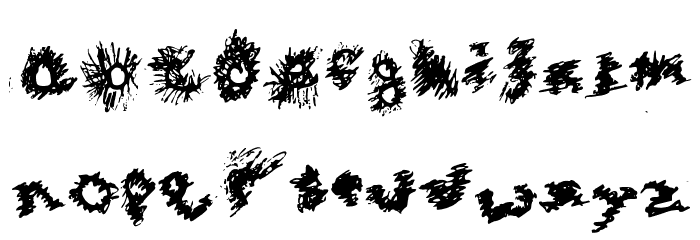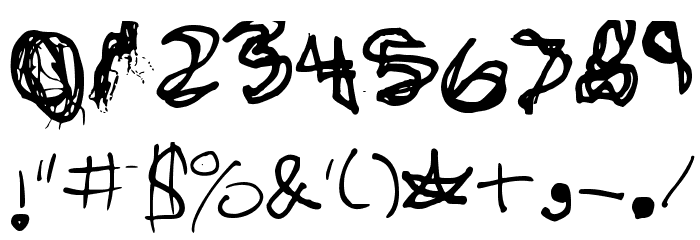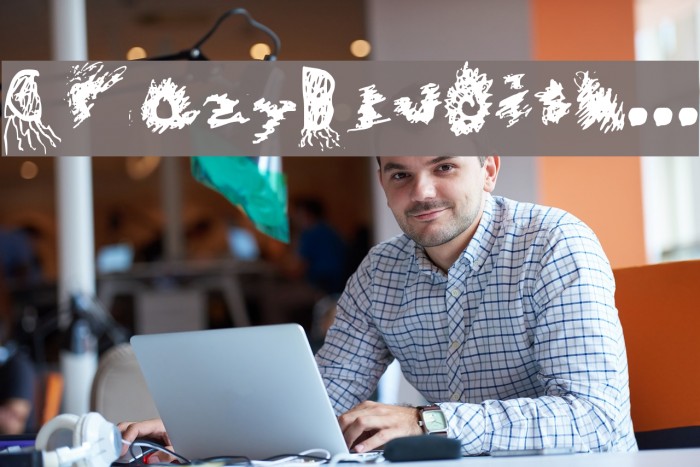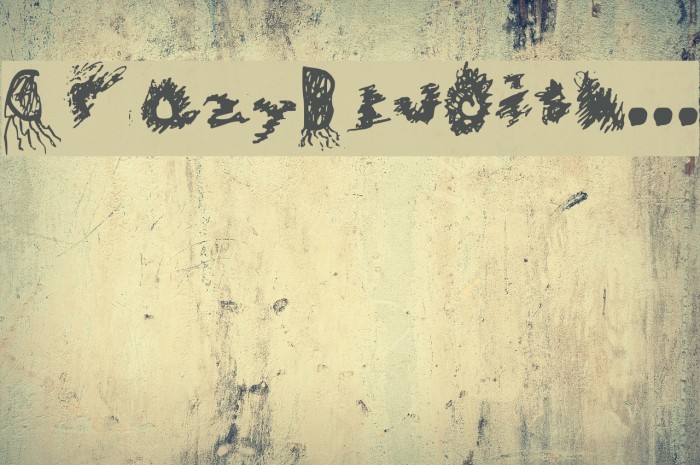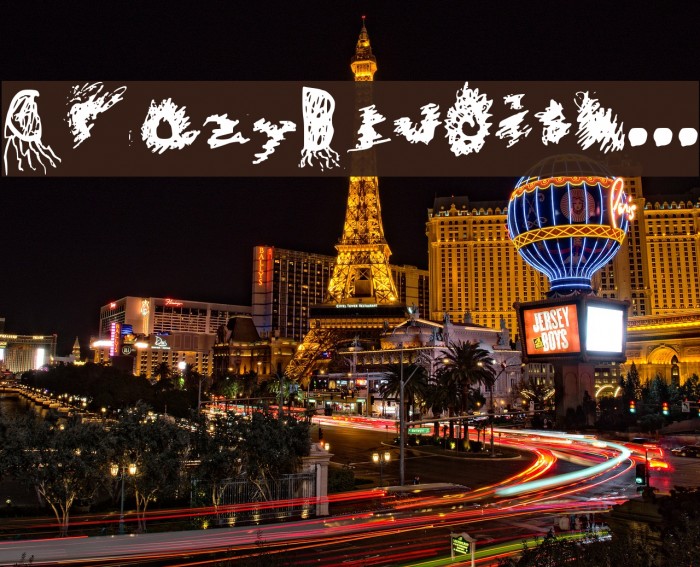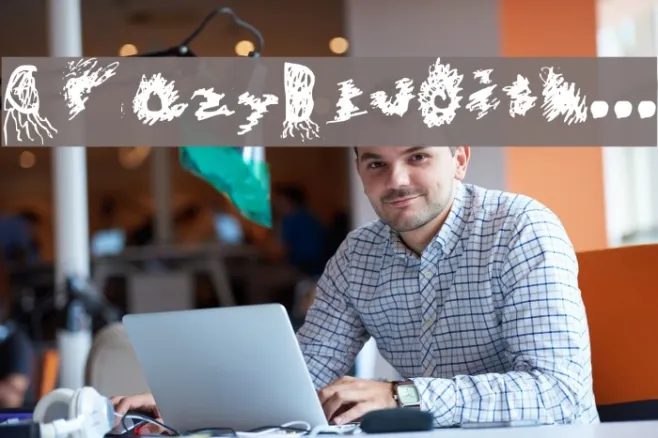
CrazyBludish... Font
This font features a chaotic and organic design, with each character appearing as if it is dripping or melting. The letters are highly stylized, with irregular edges and a sense of movement that gives them a dynamic, almost alive quality. The uppercase letters are bold and dramatic, while the lowercase letters maintain the same wild aesthetic but with slightly less intensity. Numbers and special characters follow the same theme, making the font cohesive in its unique style. This font is perfect for projects that require a bold, eye-catching design with a touch of the macabre or surreal.
A chaotic, dripping font with a dynamic and organic style.
- Proposed Projects: Ideal for horror-themed posters, album covers, Halloween invitations, or any project needing a dramatic and unconventional typeface.